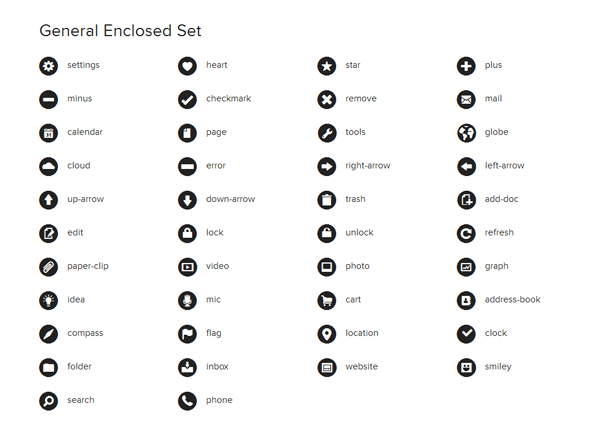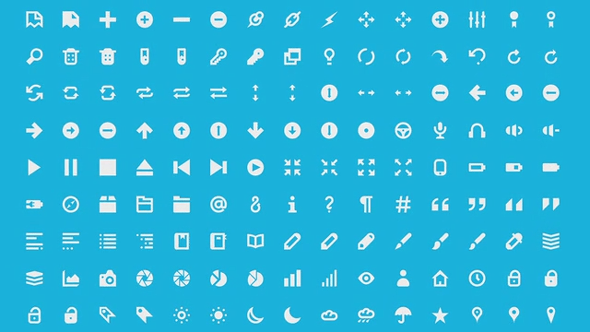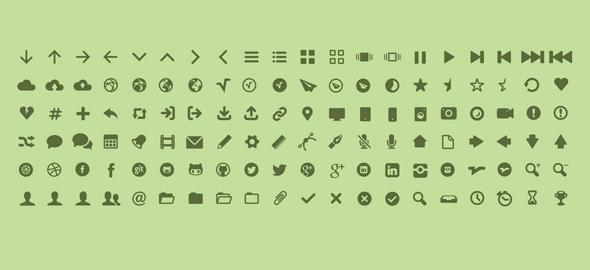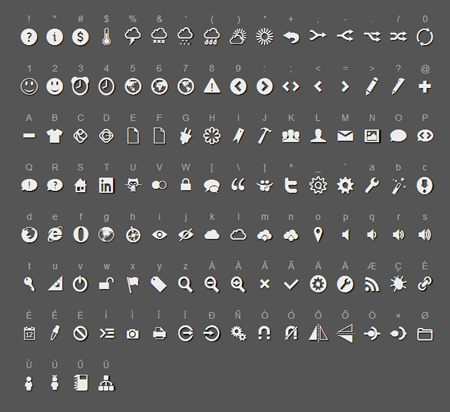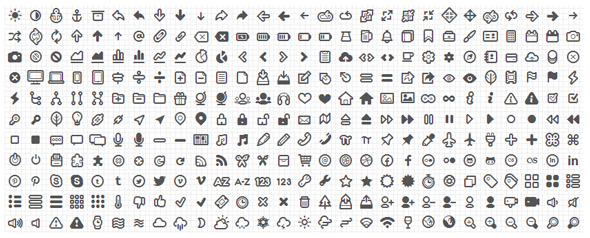
10+ top icon fonts you can download for free
Icon fonts are indispensable tools in web design nowadays. As compared to traditional image icons, icon fonts have many advantages. Here are a few reasons why icon fonts are becoming more and more popular these days:
- No need to incur a large payload of images.
- Well-suited for doing responsive design
- You can easily customize its color, size, hover state, and even apply cool CSS3 font styles such as text shadows
And here’s a list of 10+ of the best icon fonts that are absolutely free:
1. FLATICON
Flaticon offers an extensive collection of vector icons (8.9M+) and stickers, grouped into more than 200 thousand icon packs. Vector files are fully editable, so they can be used for personal and commercial projects. File formats available for download include SVG, EPS, PSD, CSS, iOS and Android applications as well as web fonts, if you prefer not to use static files. You can also customize any icon or sticker however you want. Additionally, all premium members have an extended download limit of 2,000 icons per day in multiple formats, making it super easy to create stunning interactive designs that will bring your user experience to the next level
Freepik Icons is your ultimate resource for over 10 million icons that cater to a wide range of projects, whether you’re working on a commercial website or a personal blog. Thanks to their incredible designs and styles, these icons are the ideal choice for any creative endeavor. Of course, they are available in both PNG and SVG formats, so they seamlessly integrate with various design software, ensuring a smooth workflow. What sets Freepik Icons apart is the constant addition of new icon packs, guaranteeing access to the latest trends and styles. In addition, each icon is meticulously crafted to deliver impeccable quality, elevating the visual appeal of your designs. Incorporating these versatile icons will undoubtedly lend a modern and professional touch to your web projects.
3. Iconic
Used in thousands of websites everyday, Iconic is more than just icons. Iconic are advanced icons for the modern web. With over 200 beautiful icons designed at three individual sizes, it comes in font, SVG, PNG, and WebP formats. It has a subset of icons referred to as Smart Icons which adjusts and responds to data. It allows to you to easily style and modify icons in a manner similar to how you adjust HTML through its well-structure semantic SVG. It includes a full toolkit for modification, customization, and production. Through its Responsive Iconography, you can show the right sized icon for the right screen size.
4. FoundIcons
FoundIcons are icon fonts that can help you in making websites. These are custom icon sets that are stored in a handy web font. In order to become more accessible, these icon fonts are coded. The new version of FoundIcons can be of any size, color, shape and style available in CSS. It includes general, general enclosed and accessibility sets.
5. IcoMoon
Offering more than just custom built and crisp icon fonts, IcoMoon is also an app that allows you to import your own icons to use as fonts. IcoMoon’s free version offers 450 icons handcrafted on a 16 x 16 grid. These icon fonts are available in PDF, PSD, EPS, Ai and SVG formats and are also optimized for icon font use. Moreover, its PNGS are available in 16px and 32px. You also get to have free updates from IcoMoon.
6. Social Media Icons Pack
Designed by Jelio Dimitrov, Social Media Icons Pack consists of 74 well- designed and easily adaptable social media icons combined within a single weight font. These social icon fonts are very convenient to use in web page design particularly in page layouts and themes. Additionally, you can use these icon fonts for adding customizable social media icons in your website. You can even use it for offline design or just any type of print. Each icon matches a specific key in your keyboard.
7. Font Awesome
Dubbed as the most popular icon font out in the market, Font Awesome is designed by a big community of designers. Created for Bootstrap, Font Awesome offer scalable vector icons that can be easily modified including its color, size, drop shadow, and just about anything you can do through CSS. In just one font, Font Awesome offers 369 icons. Other features include desktop friendly, retina display compatible, screen reader compatible, infinite scalability, css control, and does not require JavaScript. More importantly, it’s absolutely free even for commercial use.
8. MFG Labs Icon Set
This icon font set was inspired by Github team’s Octicons and Dave Gandy’s Font Awesome project. A friendly icon set ideal for internal project, MFG Labs Icon Set is easily embedabble on an application or a website using css and webfont. Since fonts are made with vectors, they are scalable and correctly render on mobile or retina screens. To avoid conflicts with existing characters, MFG Labs Icon Set utilizes Private Use Area Unicode. Lastly, the font directory is constantly updated for new icons.
12. Rondo
A minimalistic social media icon font, Rondo’s logos are enclosed in a circle giving the icons a symmetrical look. Social media logos including the uncommon ones such as Stack Overflow, Devianart, and Apple are offered by Rondo. In addition, it is 100% font-faced and can be easily implement on every project.